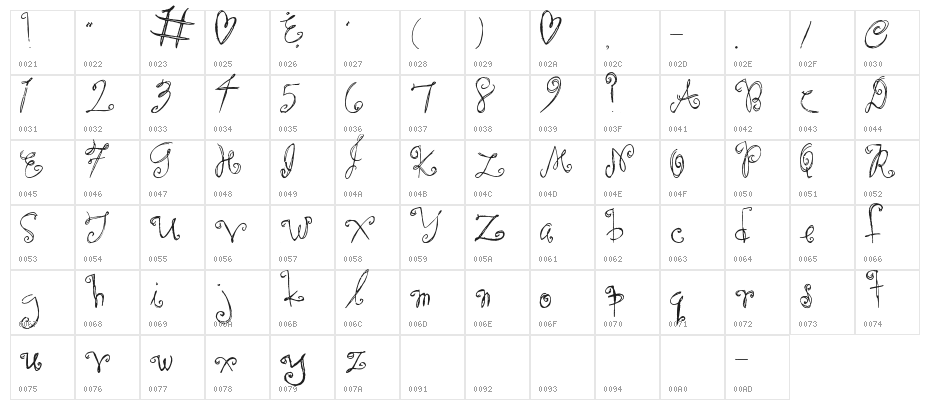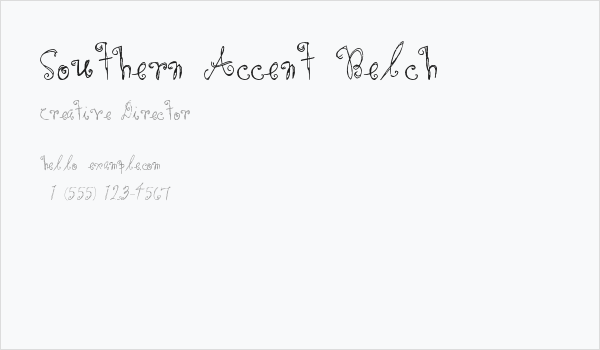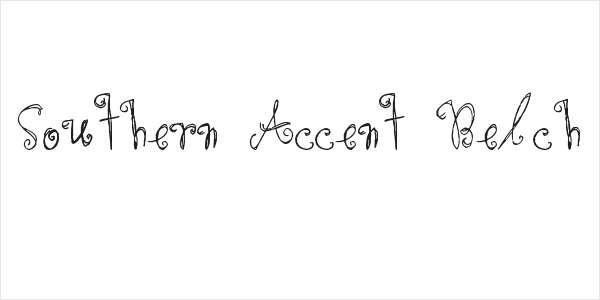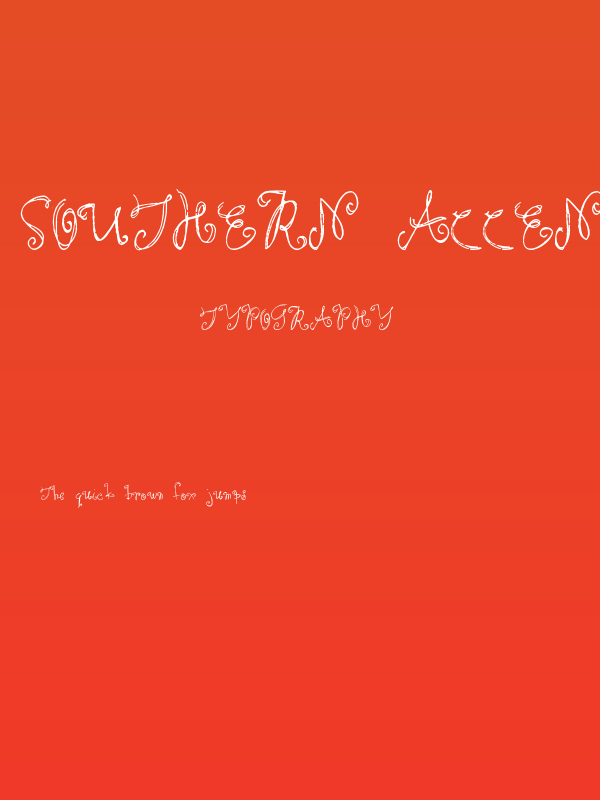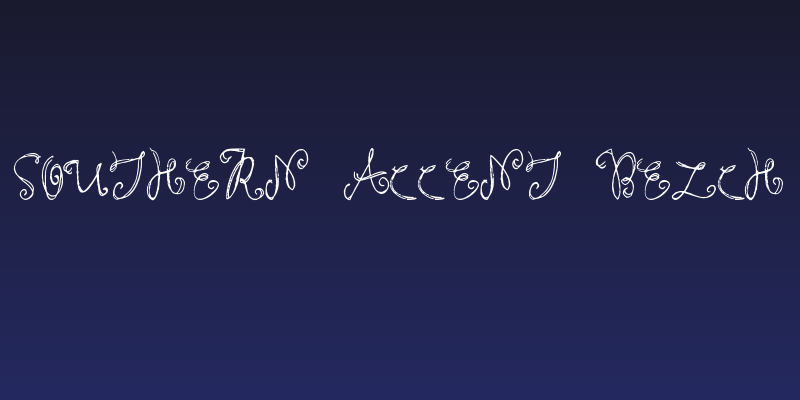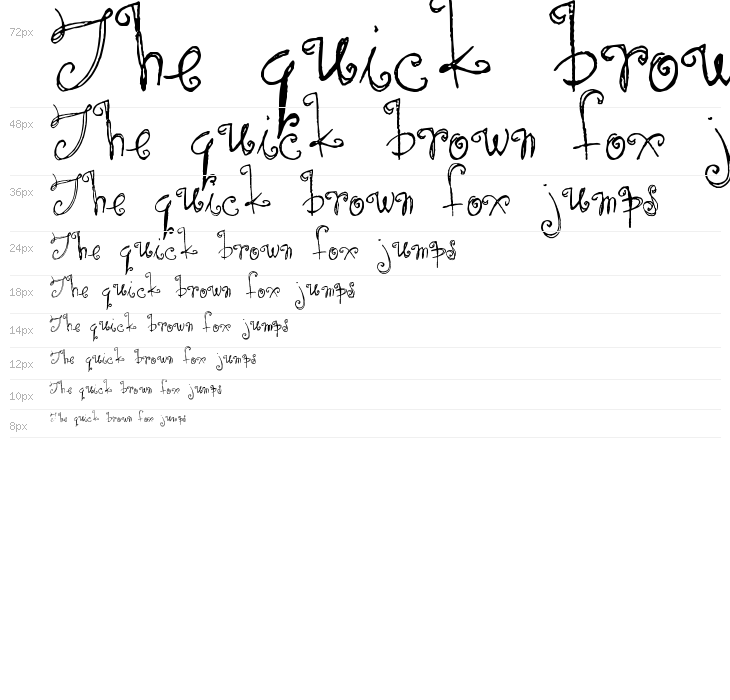
Southern Accent Belch Font
Southern Accent Belch Description
This font exudes a whimsical and playful charm, characterized by its curly and swirling strokes that give it a handwritten feel. The uppercase letters are bold and expressive, with exaggerated loops and curves that create a sense of movement. The lowercase letters maintain this playful style, with some characters featuring unique flourishes that add to the font's distinctive personality. The numerals and special characters follow the same design ethos, ensuring consistency throughout. This font's artistic flair makes it ideal for creative projects where a touch of fun and individuality is desired.
| Proposed Projects | Ideal for greeting cards, children's book covers, playful branding, and artistic posters. |